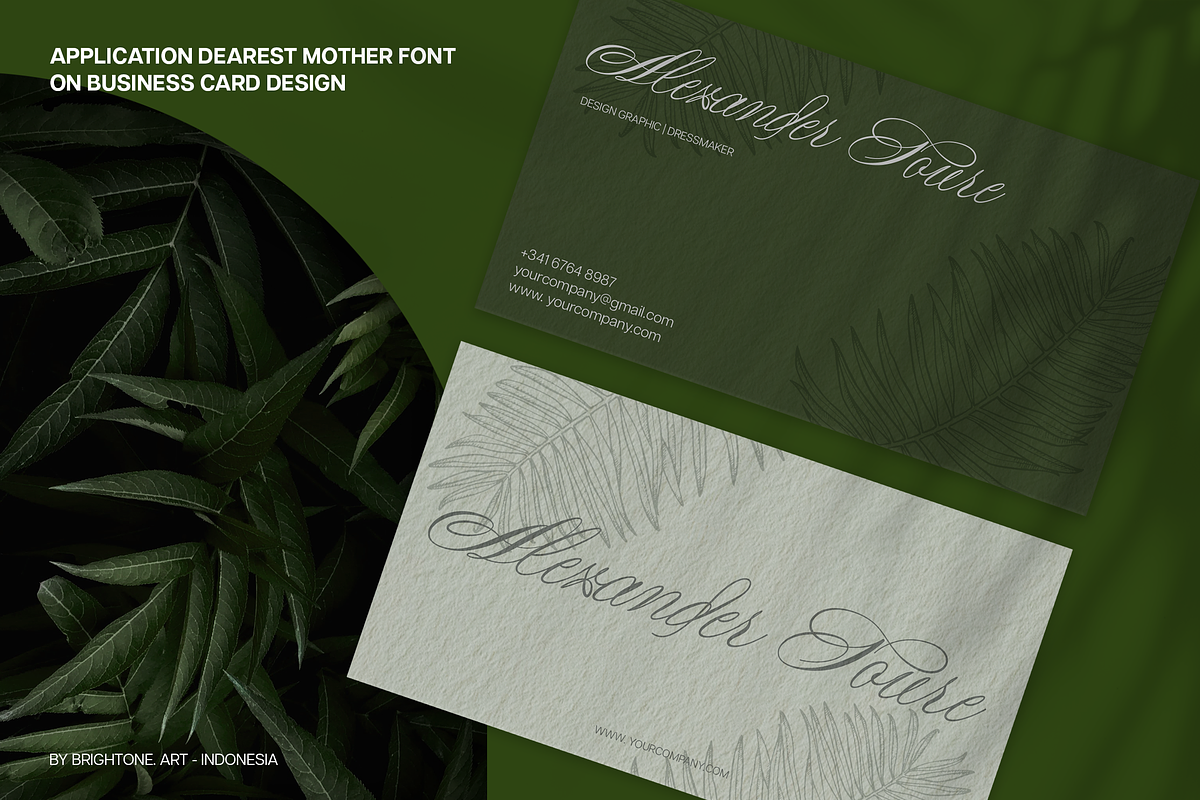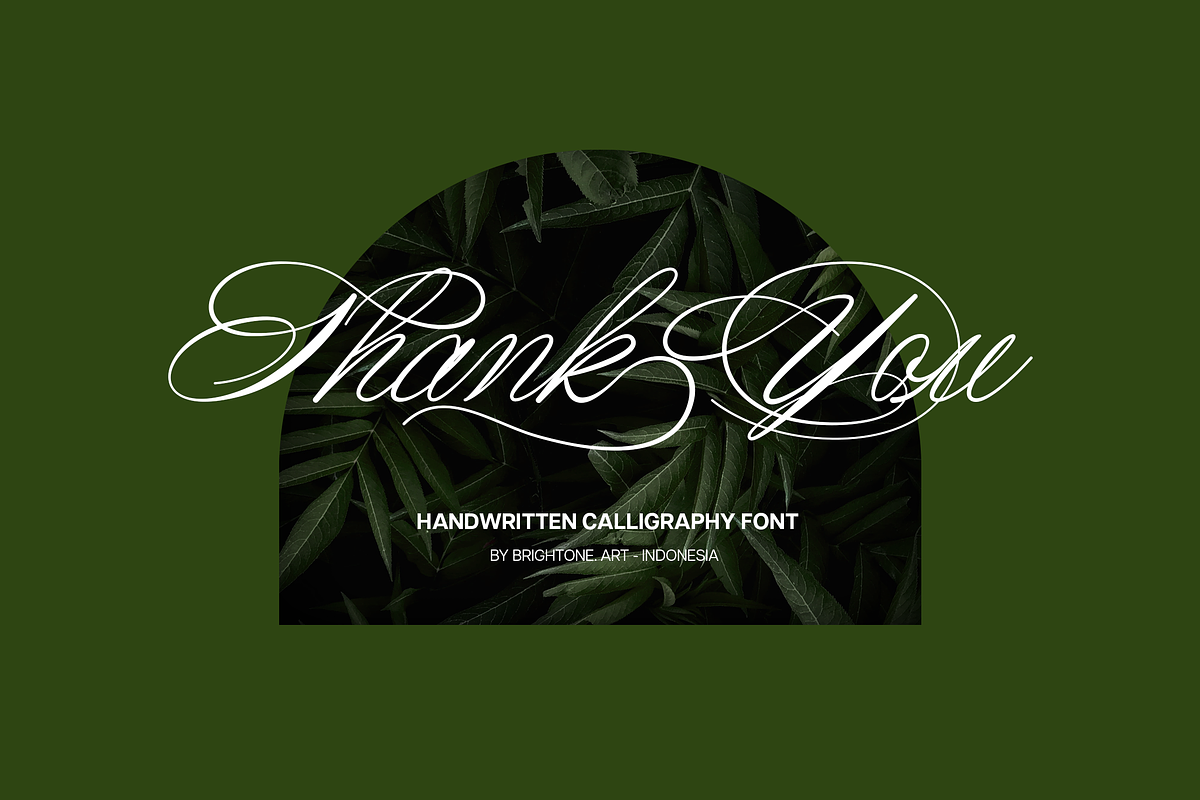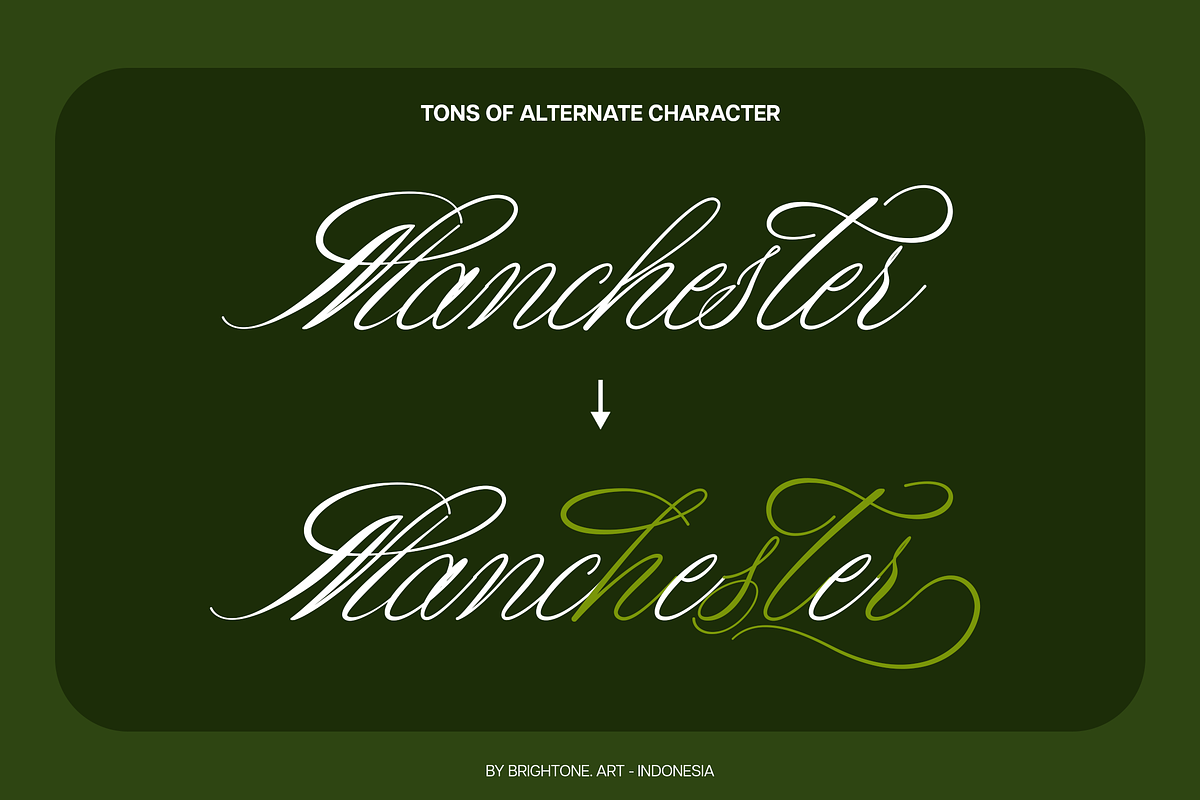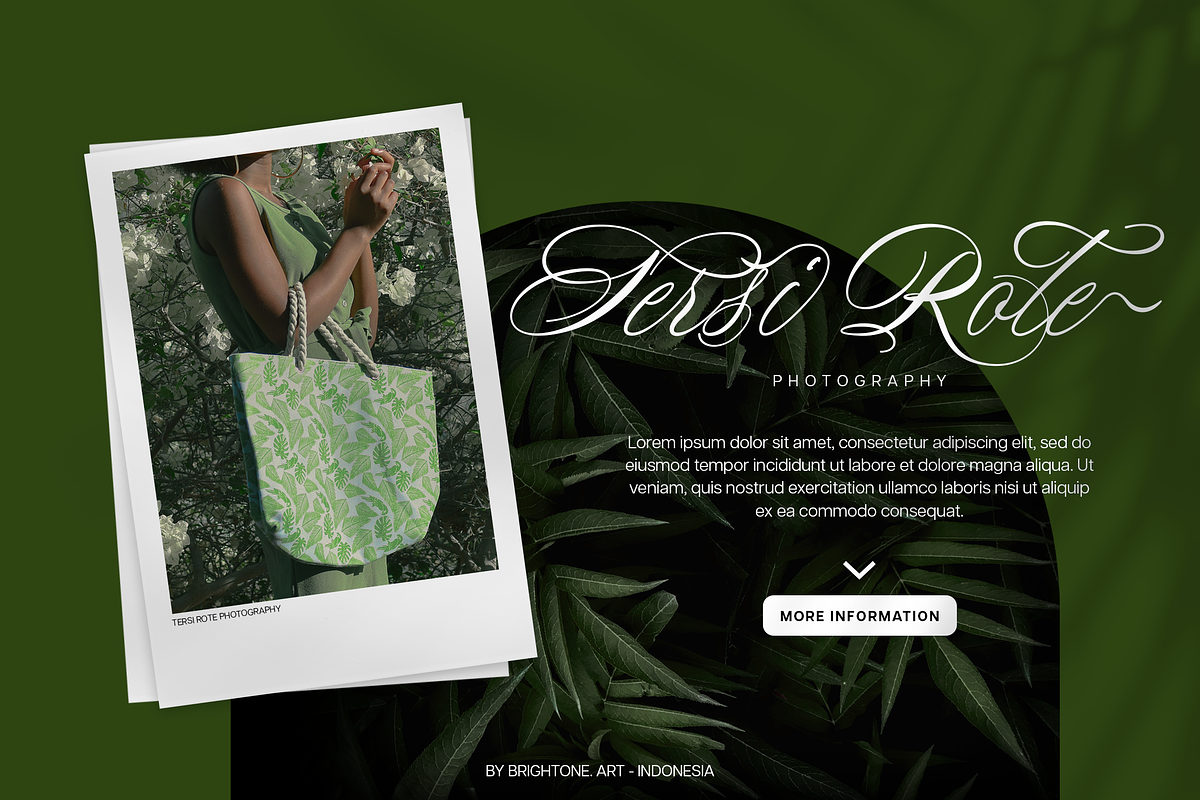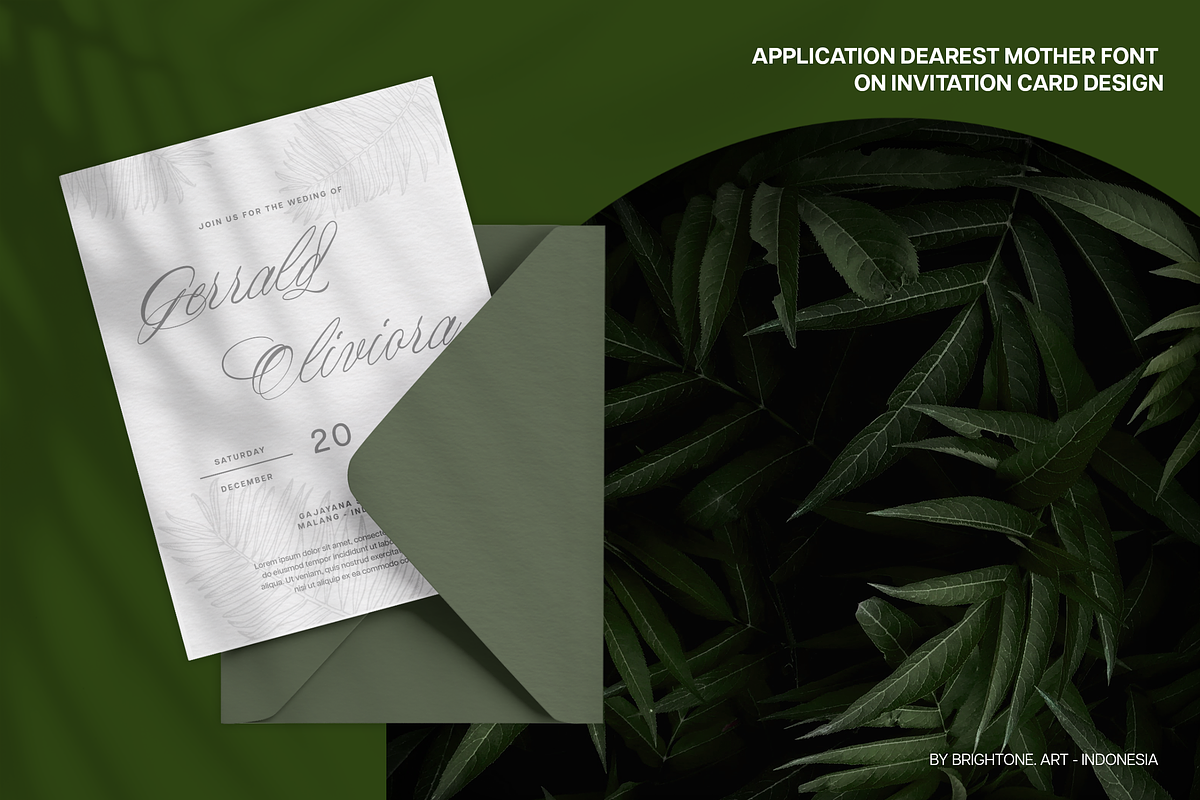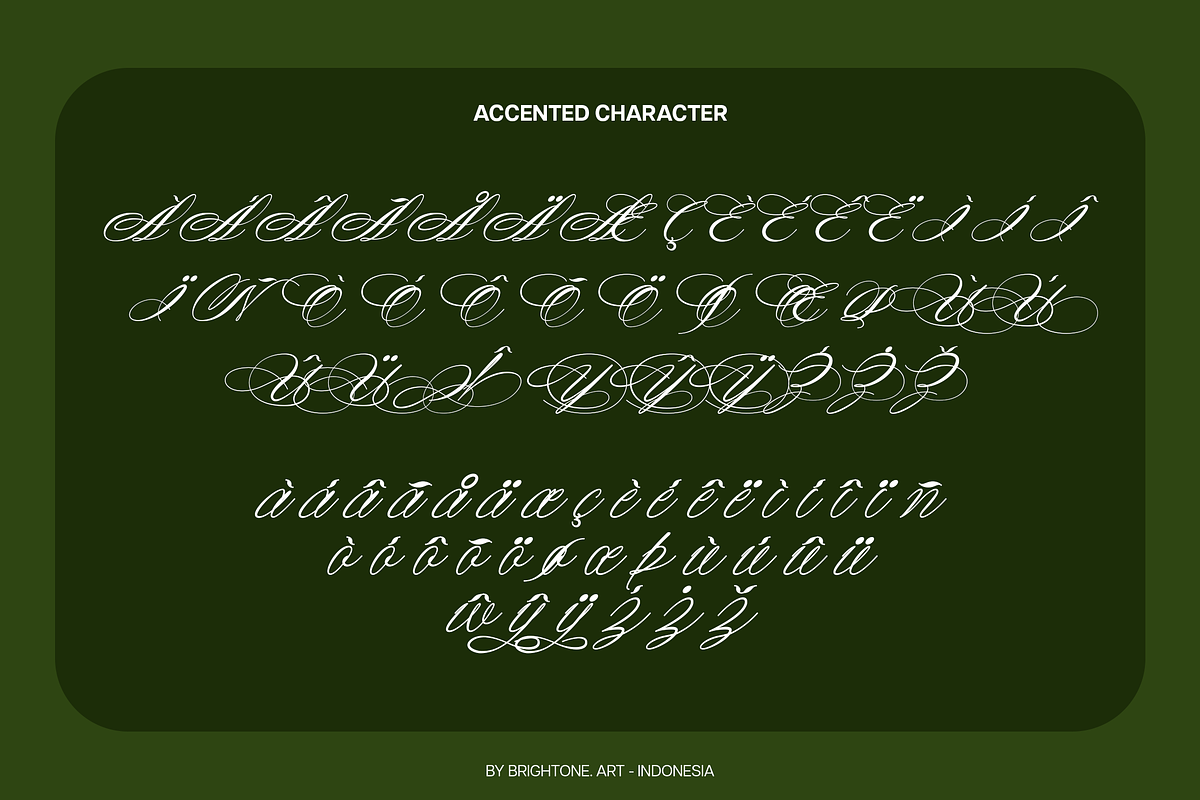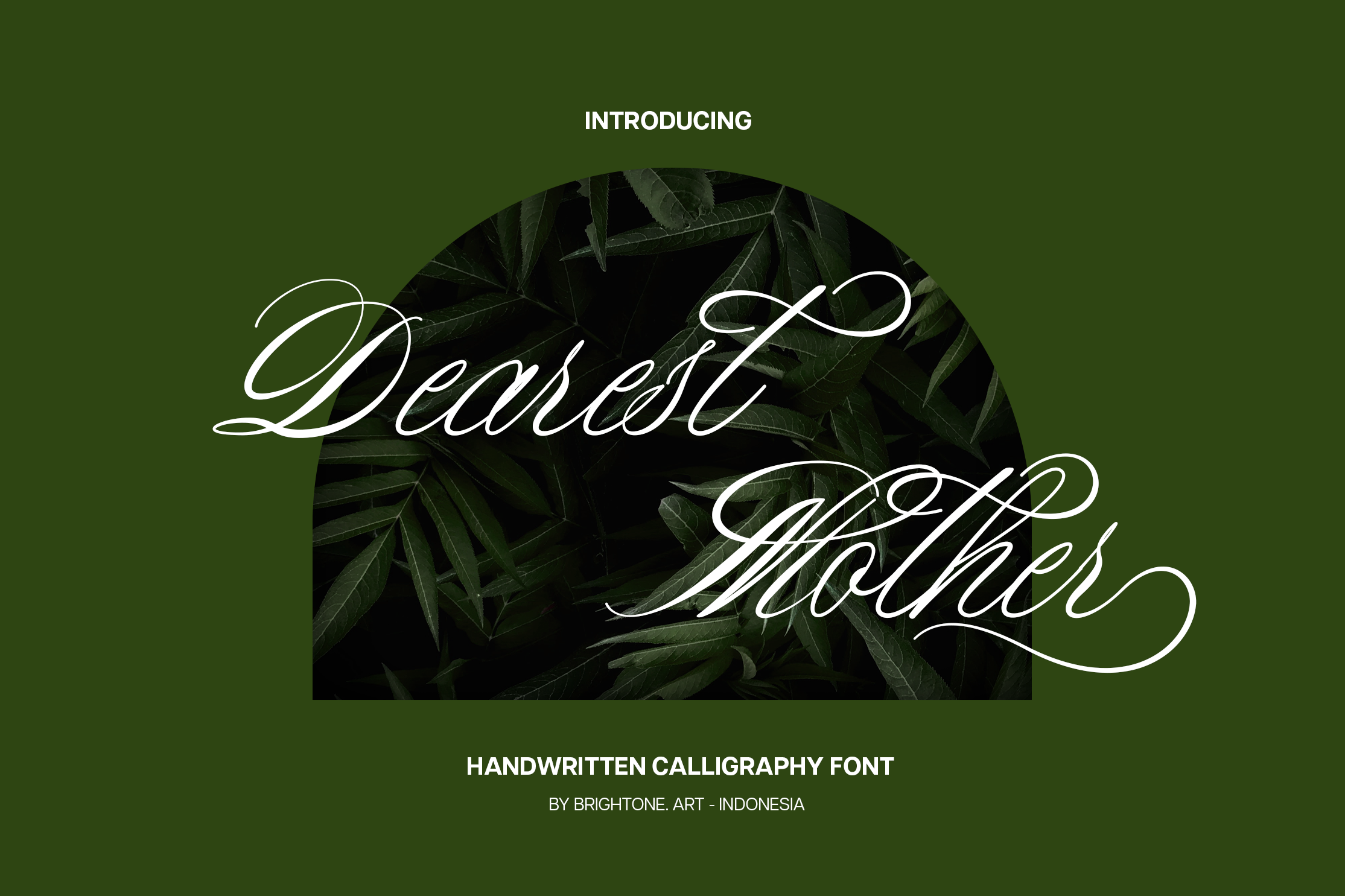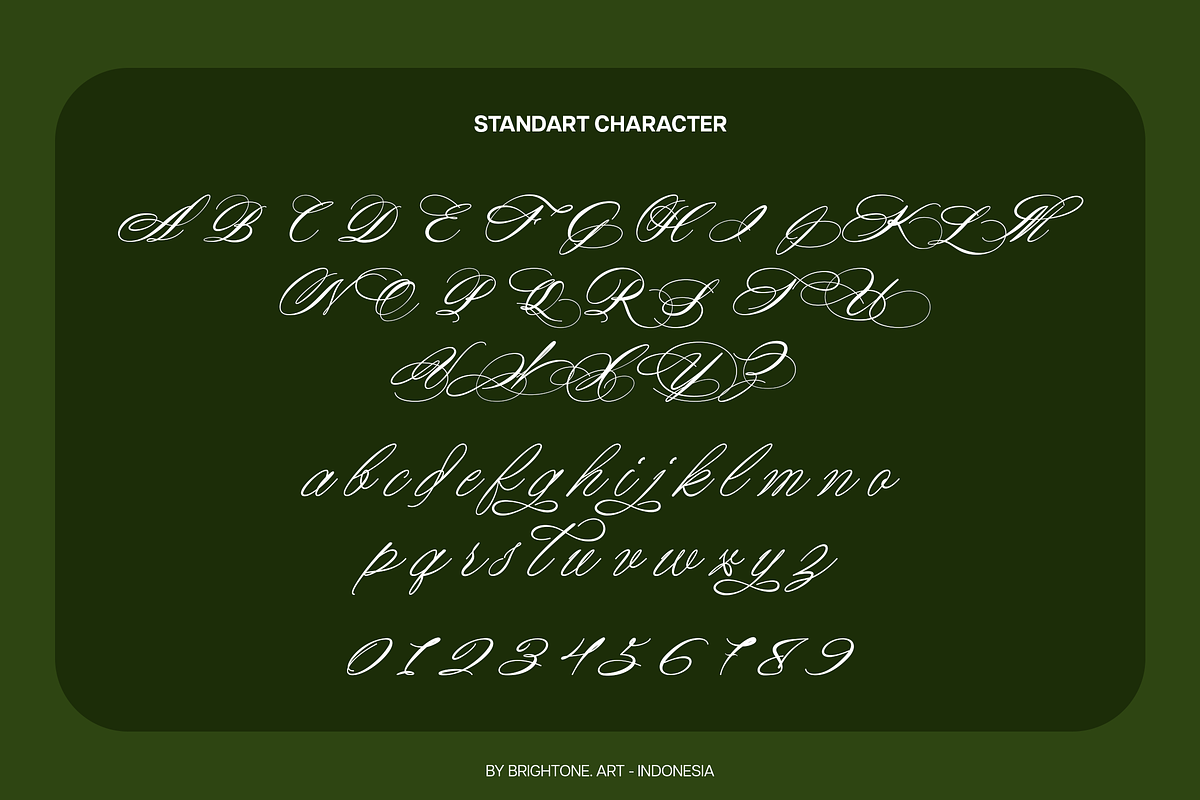
Dearest Mother - Calligraphy Font
DEAREST MOTHER is script handwritten font with good style and classy touch, these font includes:
- Uppercase and Lowercase Characters, Numbers and Punctuation.
- Ligatures.
- Multilingual Support (Eastern, Central and Western European countries).
DEAREST MOTHER font is suitable to use for all purpose for your logo lettering, logo, label, packaging, sticker, branding and many more.